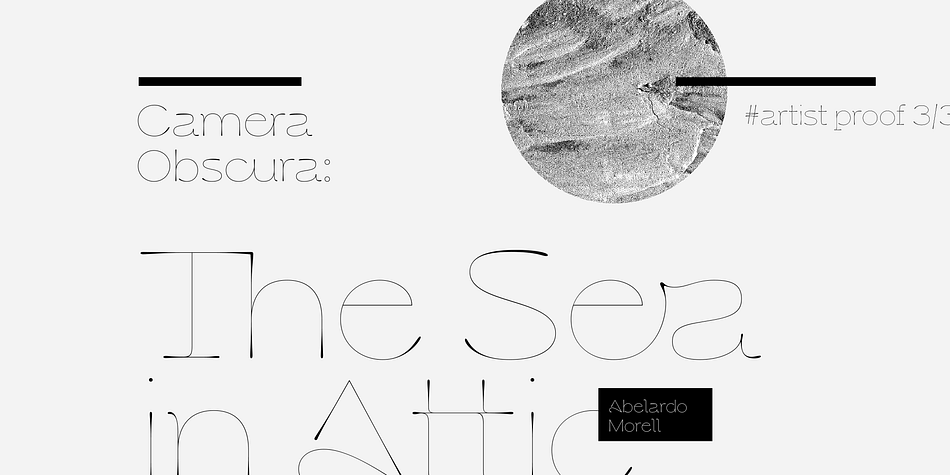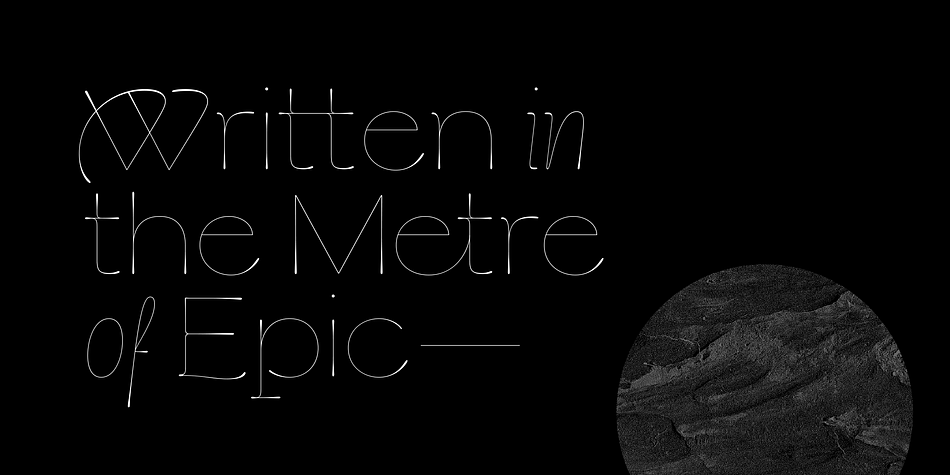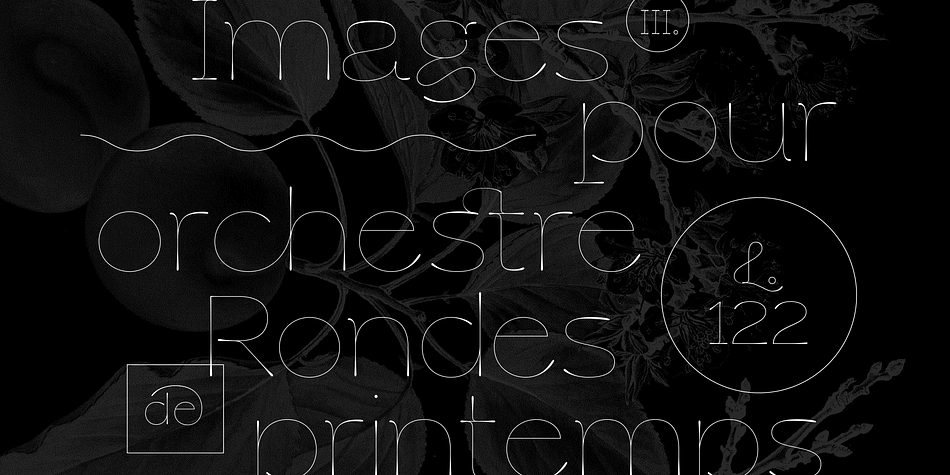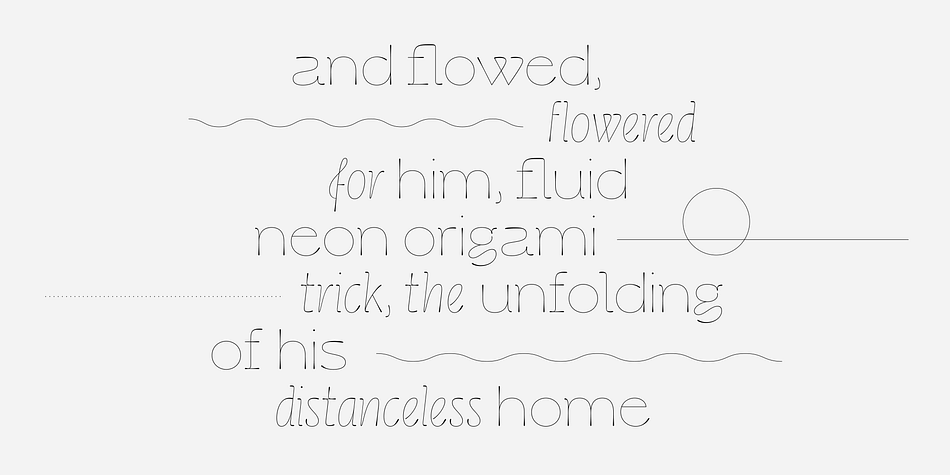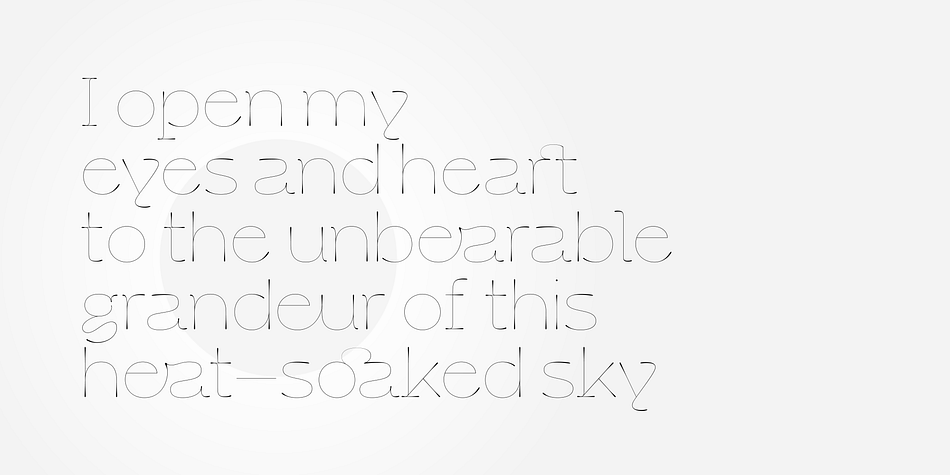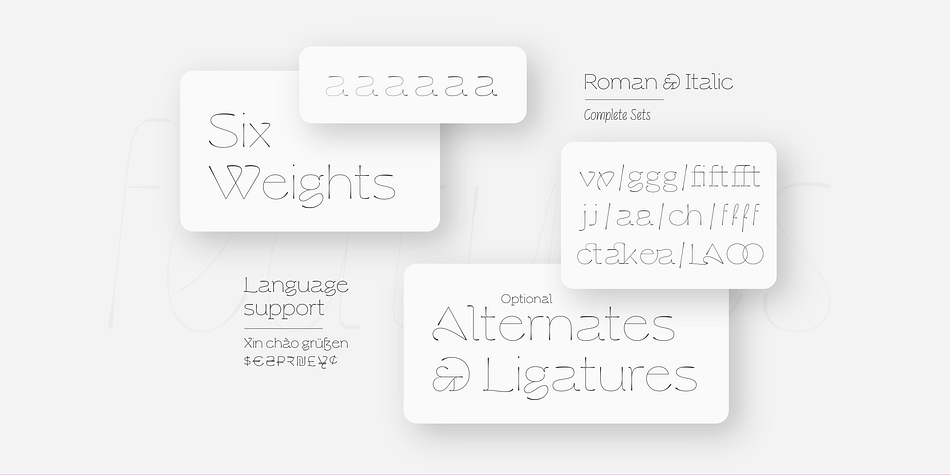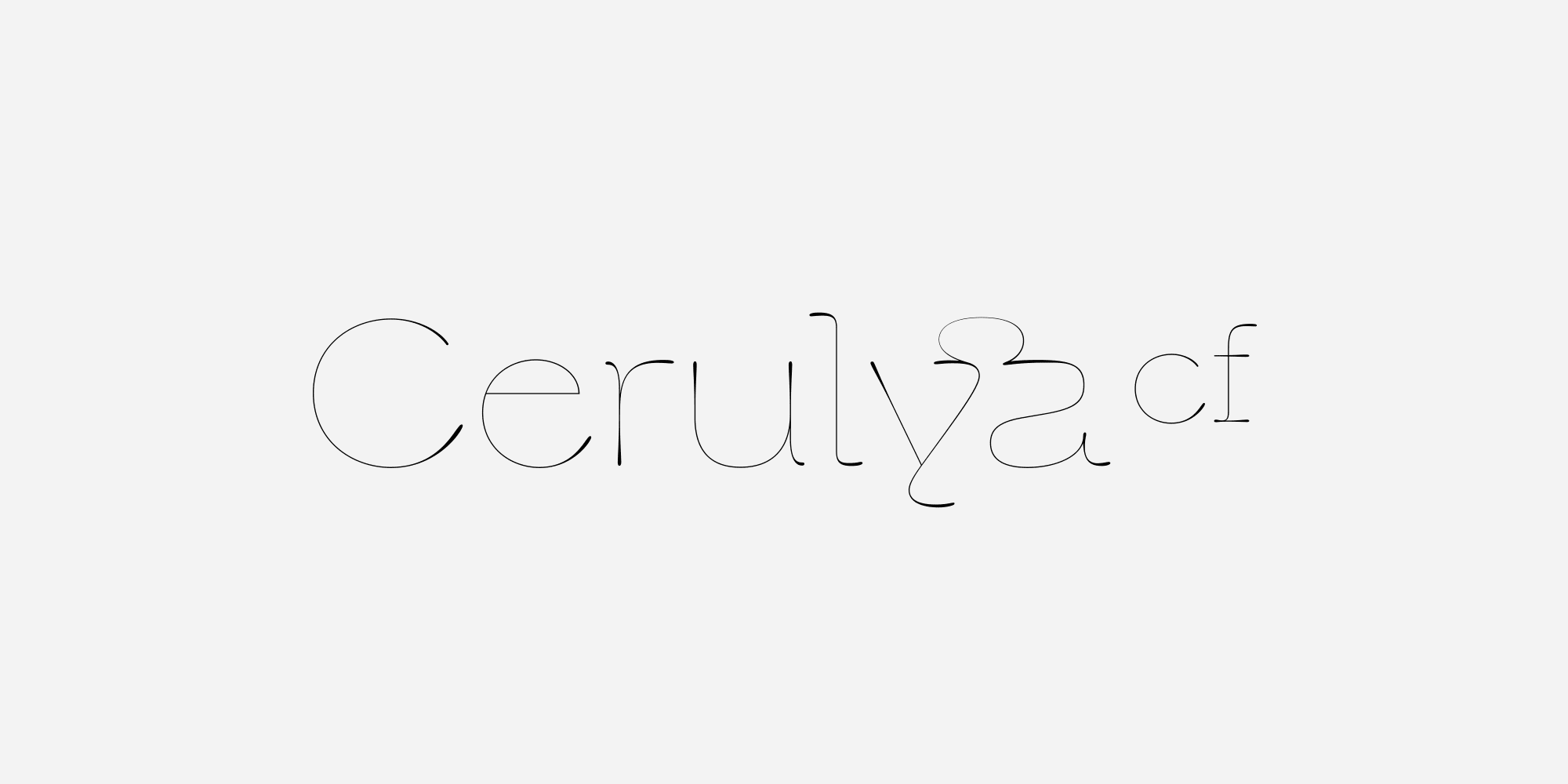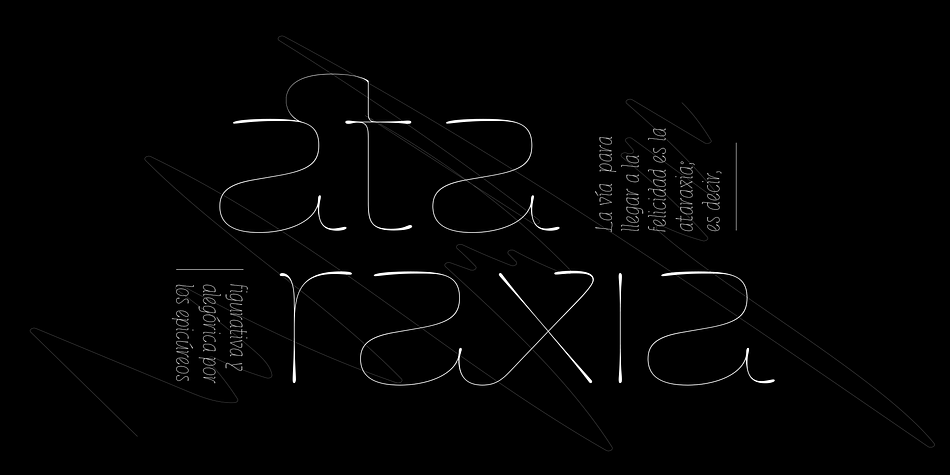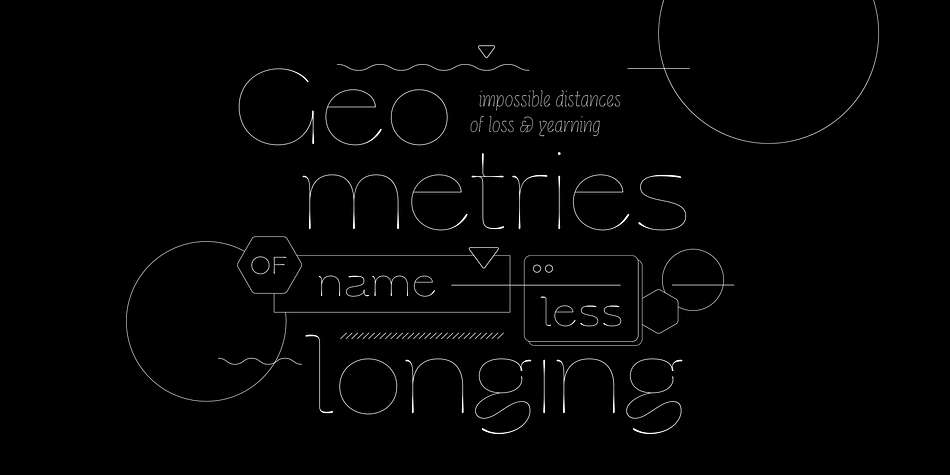
Cerulya CF
Designed by Connary Fagen, Cerulya CF is a display font family. This typeface has twelve styles and was published by Connary Fagen Type Design.
Airy and delicate, Cerulya CF is a striking display typeface brimming with movement and grace. A unique semi-serif design with rounded teardrop terminals, Cerulya CF shines brightest at large sizes – perfect for logos, posters, headlines, and more. Includes five weights, roman and italic sets, and a selection of optional ligatures, swashes, and alternates.
Cerulya CF pairs well with a contrasting, simple geometric sans-serif like Greycliff CF; for maximum effect, try a large difference in typeface size between the two.